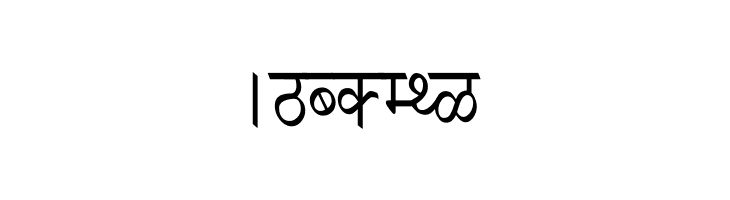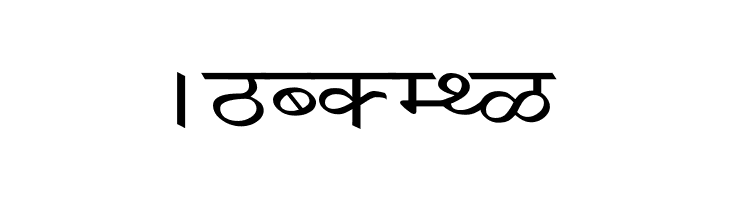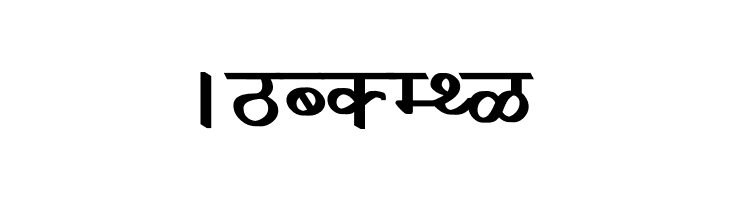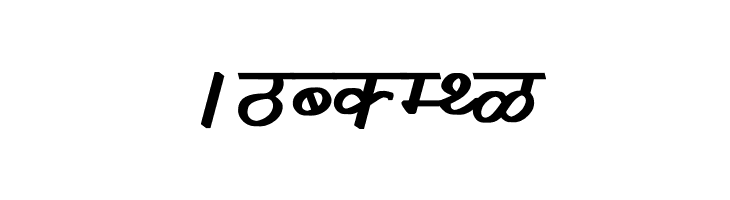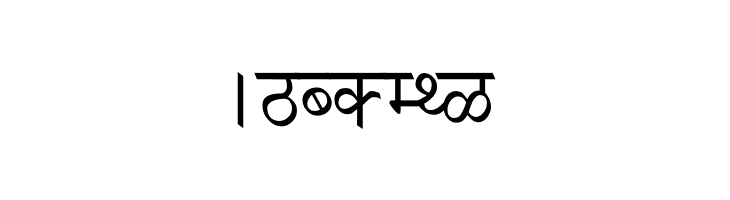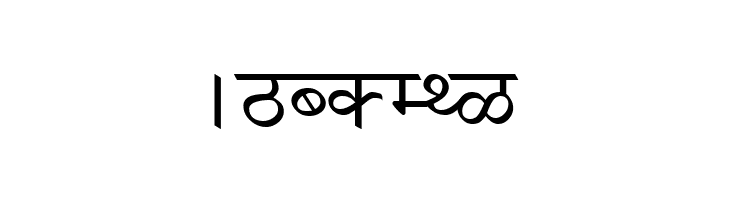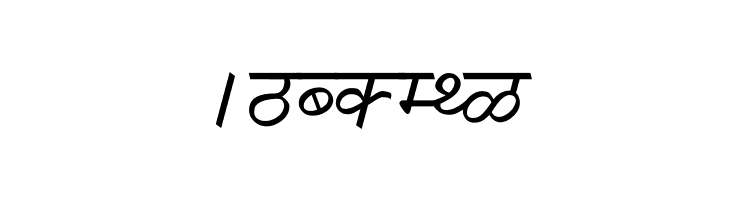
Krishna Normal Font
A traditional Devanagari script font with elegant, flowing lines and moderate contrast.
Krishna Font
A classic and elegant Devanagari script with balanced strokes and clear readability.
Krishna Wide Font
A modern, wide Devanagari script with clean lines and balanced proportions.
Krishna Bold Font
A bold, traditional Devanagari script with strong strokes and prominent serifs.
Krishna Thin Font
A modern take on traditional Devanagari script with thin, elegant strokes.
Krishna Condensed Font
A modern, condensed font with tight spacing and uniform strokes.
Krishna Bold Italic Font
A bold, italicized font with strong strokes and dynamic slant, perfect for impactful designs.
Krishna Italic Font
An elegant italic Devanagari script with moderate stroke contrast.